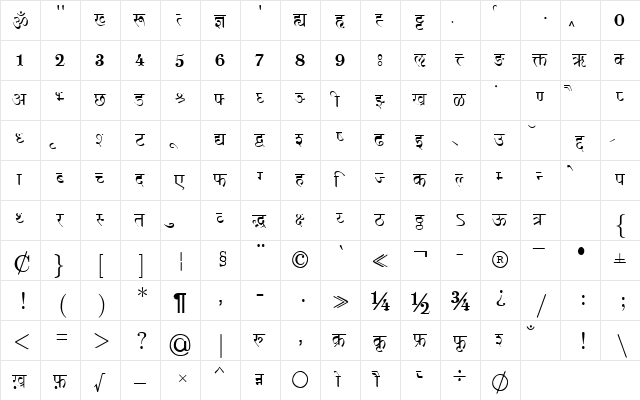
Shivaji01 Normal
Design Context for Shivaji01 Typeface
Shivaji01 offers clean, dependable letterforms without strong stylistic allegiance, making it a practical choice for designers who need flexibility.